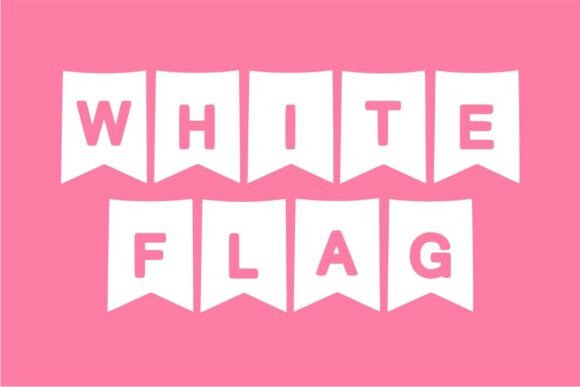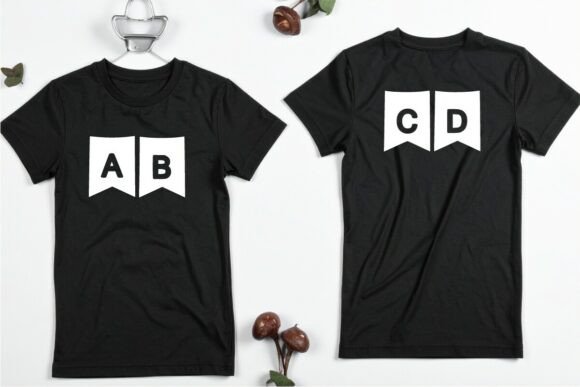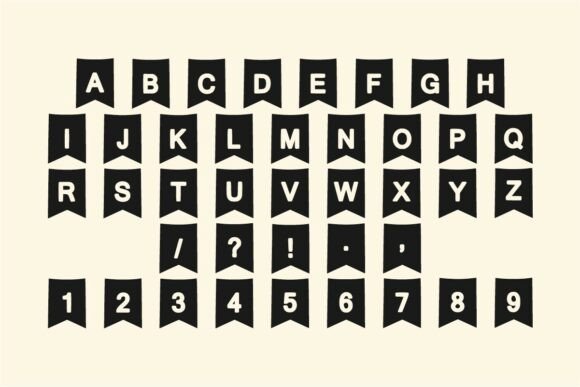
Bubble Banner Font: Add a Playful Touch to Your Designs
Are you looking for a font that can add a fun and playful touch to your designs? Look no further than the Bubble Banner Font! Inspired by cute party banners and bubble-style lettering, this decorative font is perfect for a variety of creative projects. In this article, we’ll explore the features and benefits of the Bubble Banner Font, and show you how to use it to take your designs to the next level.
What is Bubble Banner Font?
Bubble Banner Font is a fun and playful decorative font that is inspired by cute party banners and bubble-style lettering. Its bold, rounded shapes make your text stand out while keeping a friendly and joyful look. This font is perfect for kids’ designs, birthday invitations, party decorations, greeting cards, posters, stickers, branding, and cheerful social media content.
Key Features of Bubble Banner Font
• Playful and Fun Design: The Bubble Banner Font features bold, rounded shapes that give your text a friendly and joyful look.
• Perfect for Kids’ Designs: This font is ideal for kids’ designs, including birthday invitations, party decorations, and kids’ greeting cards.
• Versatile: The Bubble Banner Font can be used for a variety of creative projects, including posters, stickers, branding, and social media content.
• Easy to Read: The font’s bold and rounded shapes make it easy to read, even at smaller sizes.
Use Cases for Bubble Banner Font
The Bubble Banner Font is perfect for a variety of creative projects, including:
• Kids’ Designs: Use the Bubble Banner Font to create fun and playful designs for kids, including birthday invitations, party decorations, and kids’ greeting cards.
• Party Decorations: Create eye-catching party decorations, such as banners and signs, using the Bubble Banner Font.
• Greeting Cards: Add a playful touch to your greeting cards, including birthday cards, get well cards, and holiday cards.
• Posters and Stickers: Use the Bubble Banner Font to create eye-catching posters and stickers for kids’ events, parties, and promotions.
• Branding and Social Media: Add a playful touch to your branding and social media content, including logos, headers, and graphics.
Tips for Using Bubble Banner Font
Here are some tips for using the Bubble Banner Font:
• Use it for Headlines: The Bubble Banner Font is perfect for headlines and titles, where you want to grab attention and add a playful touch.
• Experiment with Colors: The Bubble Banner Font looks great in bright and bold colors, so don’t be afraid to experiment and find the perfect color scheme for your design.
• Pair it with Other Fonts: The Bubble Banner Font can be paired with other fonts to create a unique and interesting design.
• Use it for Kids’ Projects: The Bubble Banner Font is perfect for kids’ projects, including school assignments, art projects, and kids’ party decorations.
The Bubble Banner Font is a fun and playful decorative font that is perfect for a variety of creative projects. Its bold, rounded shapes make your text stand out while keeping a friendly and joyful look. Whether you’re a designer, crafter, or DIY enthusiast, the Bubble Banner Font is a great addition to your font collection. So why not give it a try and add a playful touch to your designs?
• What is the Bubble Banner Font?: The Bubble Banner Font is a fun and playful decorative font inspired by cute party banners and bubble-style lettering.